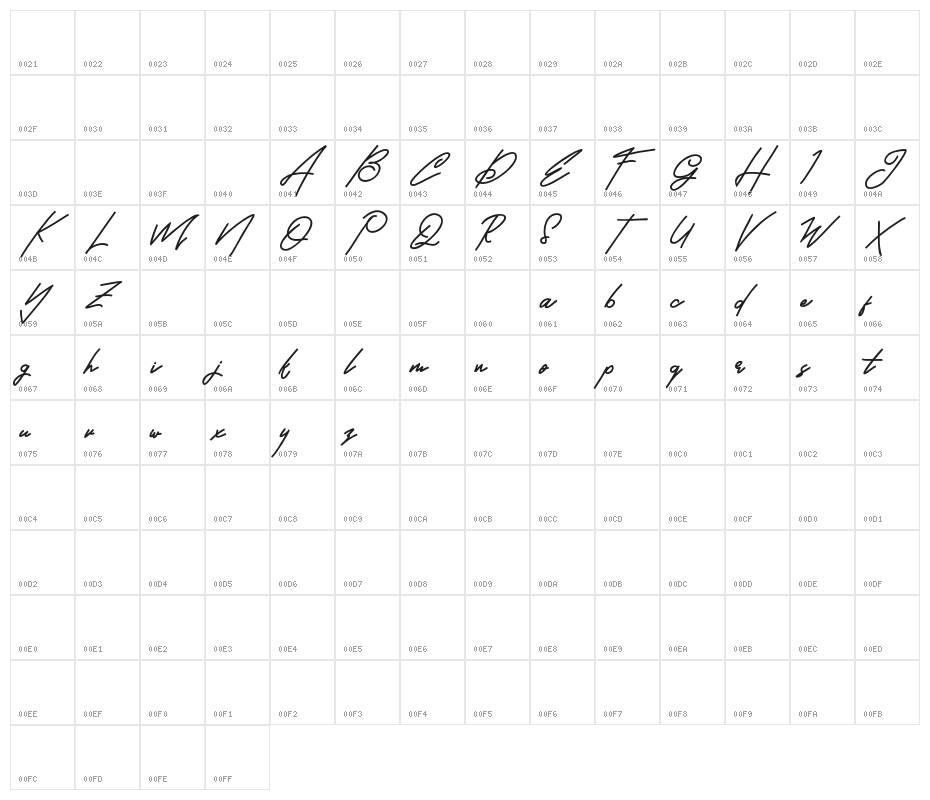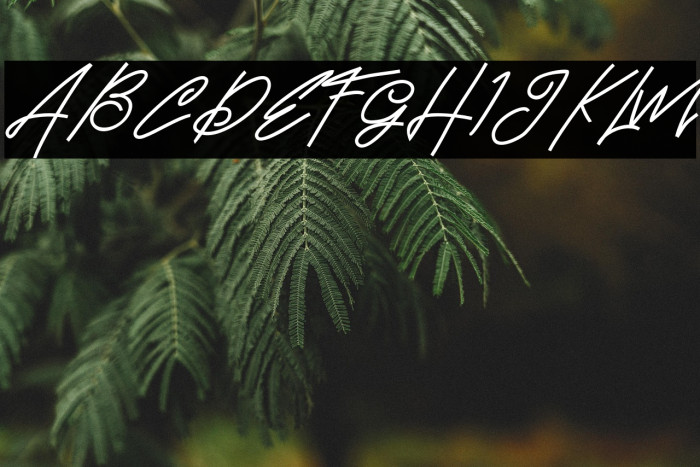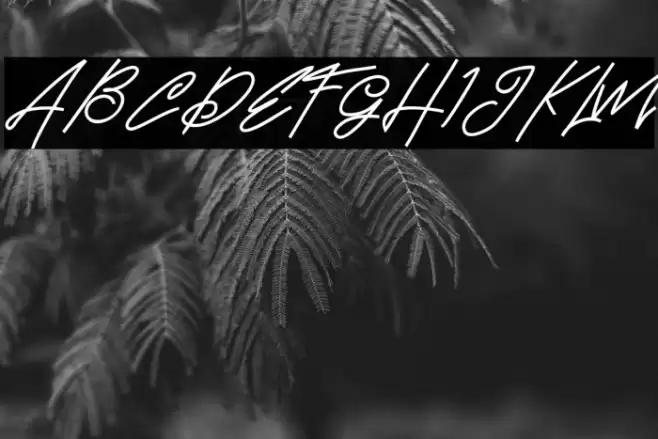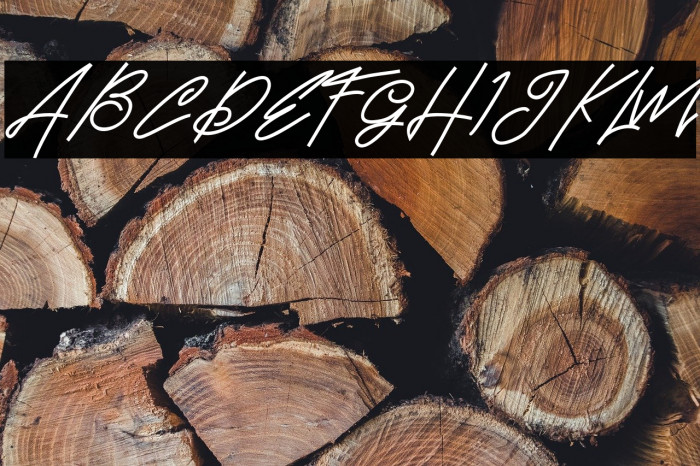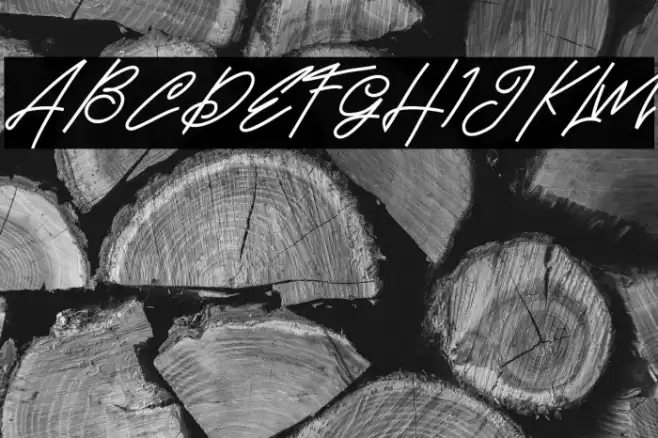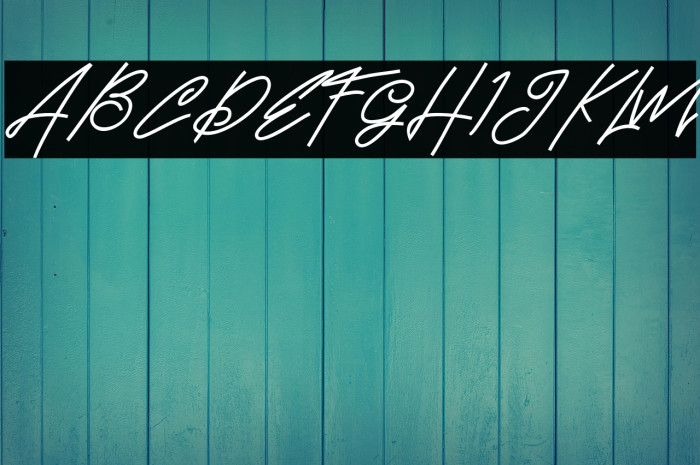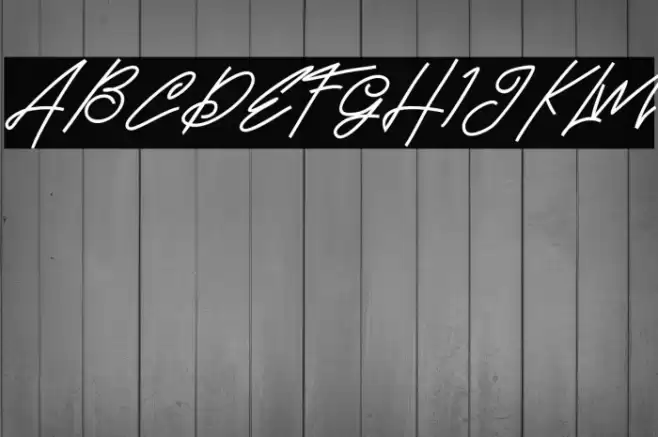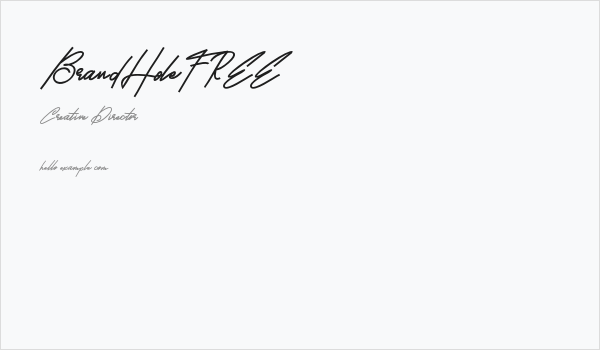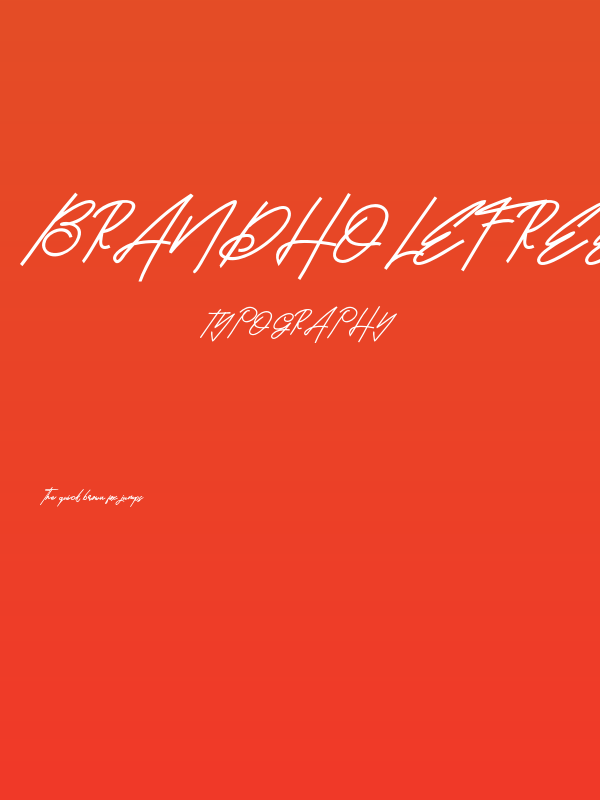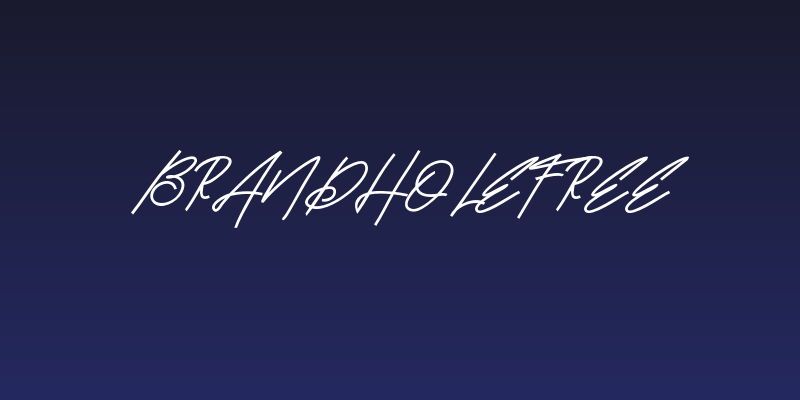
BrandHoleFREE Font
BrandHoleFREE Description
This font exhibits a dynamic and fluid cursive style, characterized by its elegant and flowing letterforms. The strokes are smooth and connected, giving it a handwritten appearance that is both stylish and sophisticated. The uppercase letters are bold and slightly slanted, while the lowercase letters maintain a consistent flow, enhancing its readability. The font's design is reminiscent of traditional calligraphy, yet it retains a modern touch with its clean lines and balanced proportions. This makes it suitable for a variety of design applications where a personal and artistic touch is desired.